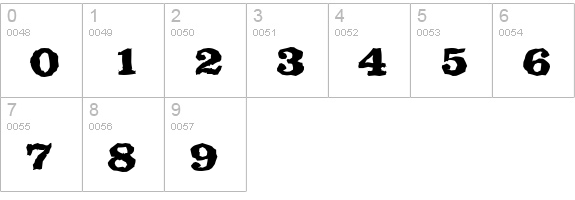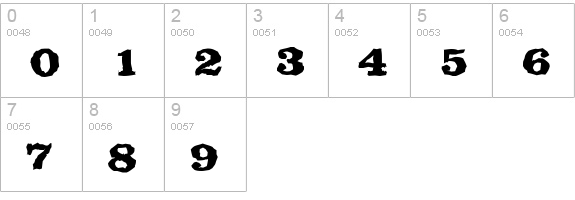
ClareRandom-Heavy Font Details
ClareRandom-Heavy is a heavy, high-impact variant in the ClareRandom typeface family \xE2\x80\x94 well suited to high-impact headlines, posters, and display advertising.
Introducing ClareRandom-Heavy font, a striking and bold typeface that exudes a sense of modernity and dynamism. This unique font features randomly placed heavy strokes that give it a distinctive and eye-catching appearance. Perfect for making a statement in headlines, logos, posters, and other design projects, ClareRandom-Heavy font is sure to grab attention and leave a lasting impression. Best of all, ClareRandom-Heavy font is available for free download at FontsMarket.com. Whether you're a seasoned designer looking to add a fresh touch to your creations or a newcomer eager to experiment with different styles, this font is a must-have in your collection. Embrace the creativity and versatility of ClareRandom-Heavy font today and watch your designs come to life with its bold and captivating presence.